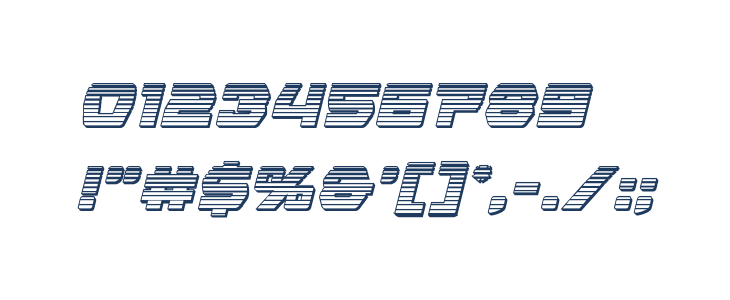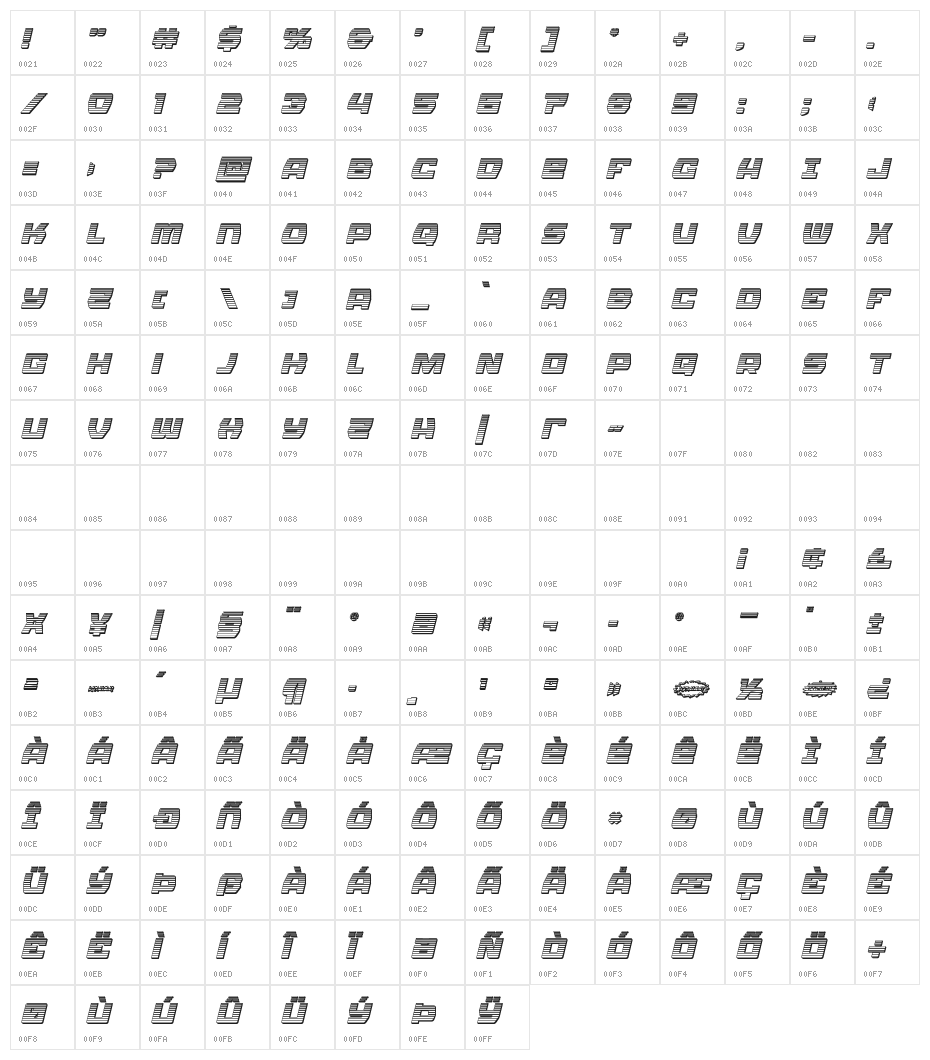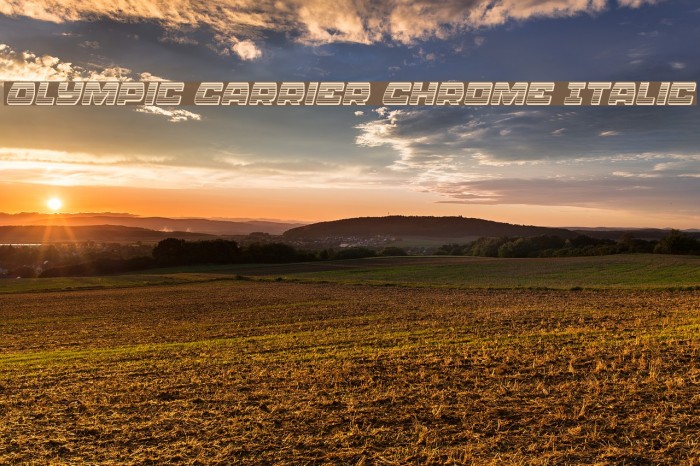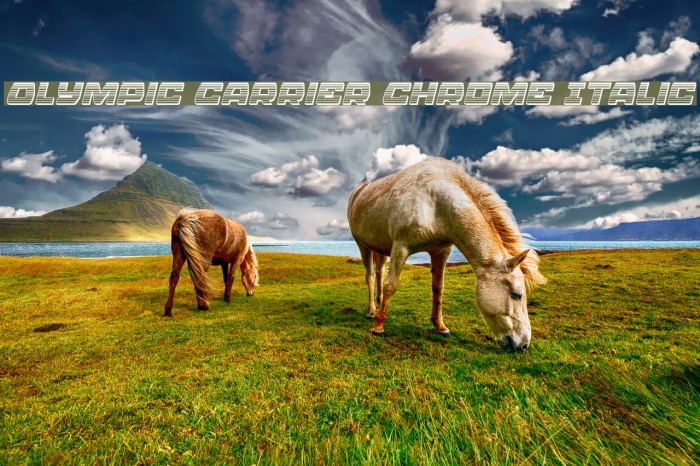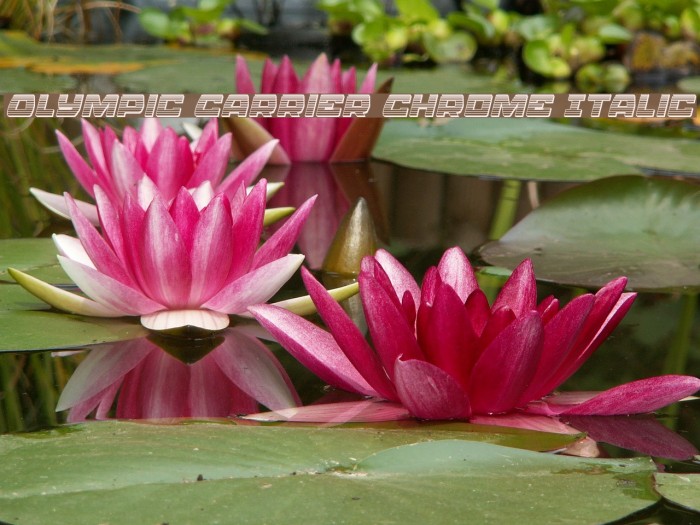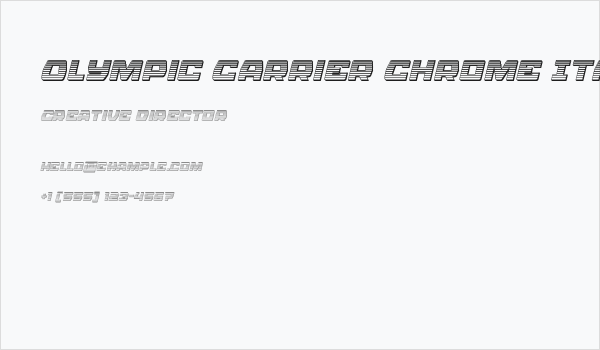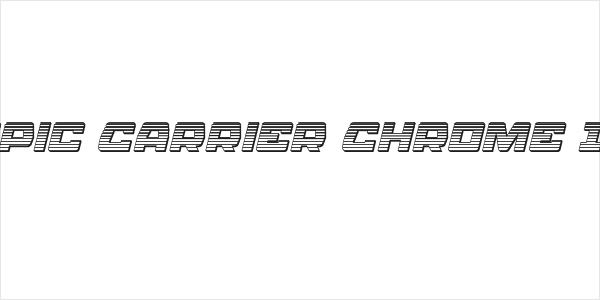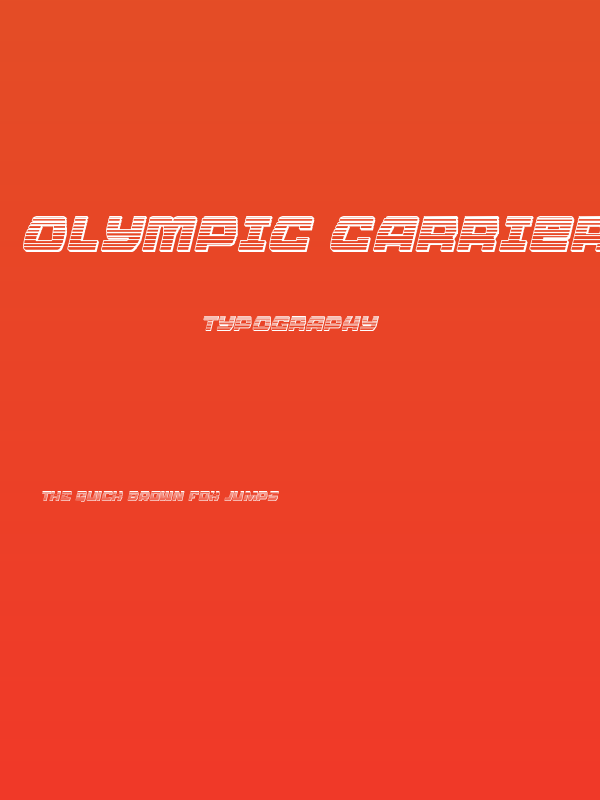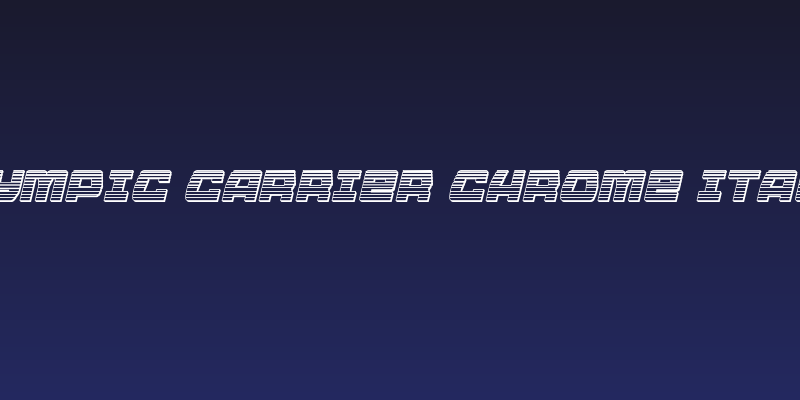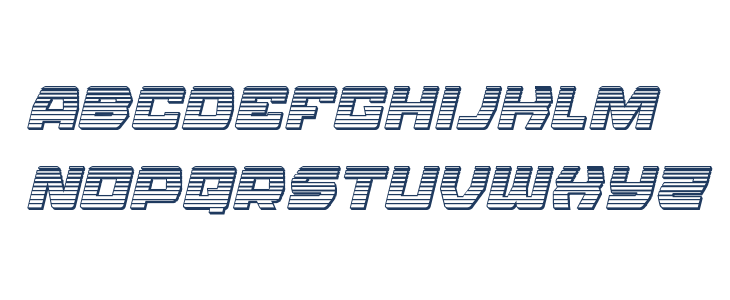
Olympic Carrier Chrome Italic Font
Olympic Carrier Chrome Italic Description
This font features a bold, futuristic design with a distinct chrome-like appearance. The letters are constructed with multiple parallel lines, creating a layered effect that gives a sense of depth and movement. The italicized slant adds a dynamic and energetic feel, making it ideal for projects that require a modern and edgy look. The characters are wide and have a consistent stroke width, contributing to a strong visual impact. The font includes both uppercase and lowercase letters, numbers, and a variety of special characters, ensuring versatility in design applications.
| Proposed Projects | Ideal for sci-fi themed posters, video game titles, technology branding, and modern advertising campaigns. |